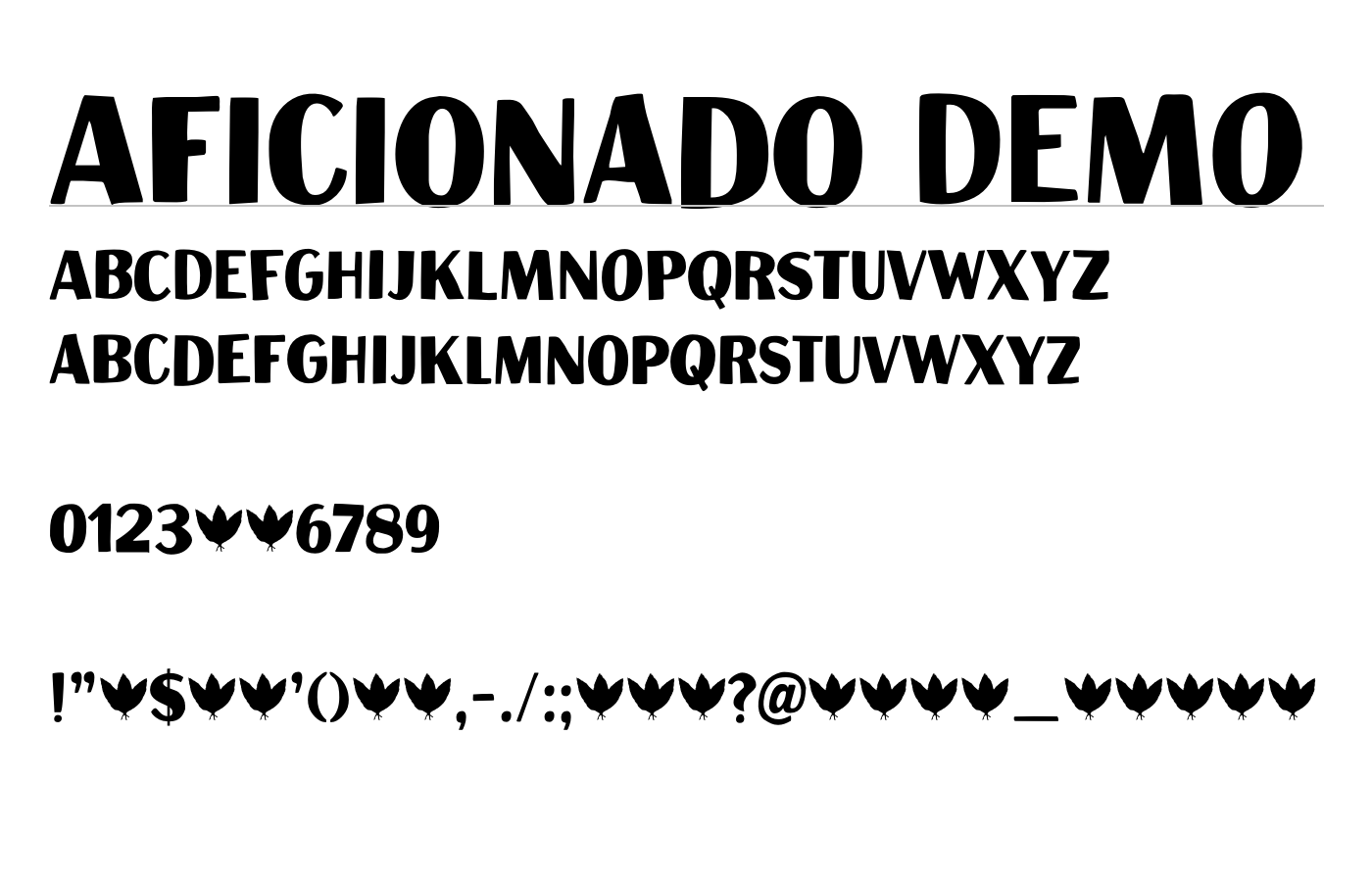
Aficionado DEMO is a bold, playful sans serif font with a slightly condensed width and a strong, quirky personality. Its uneven stroke widths and distinctive character shapes give it a hand-crafted, informal feel, making it great for creative headlines, posters, and branding that wants to stand out with a fun and approachable vibe. This font works well when you need a memorable, energetic look that captures attention without sacrificing readability.
Aficionado DEMO Font
About Aficionado DEMO Font
| Font family | Aficionado DEMO Font |